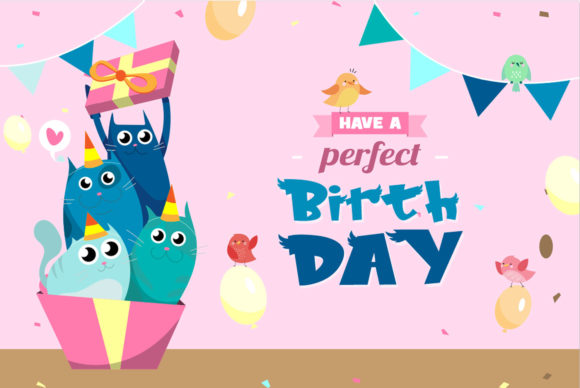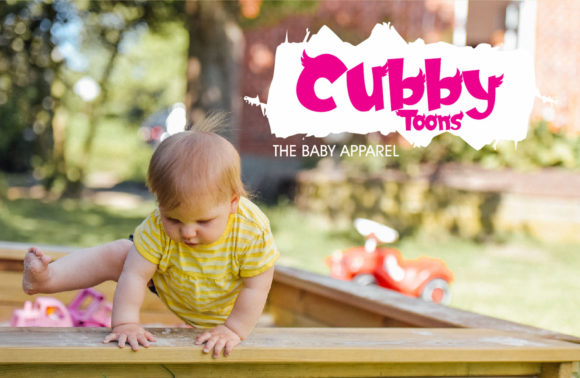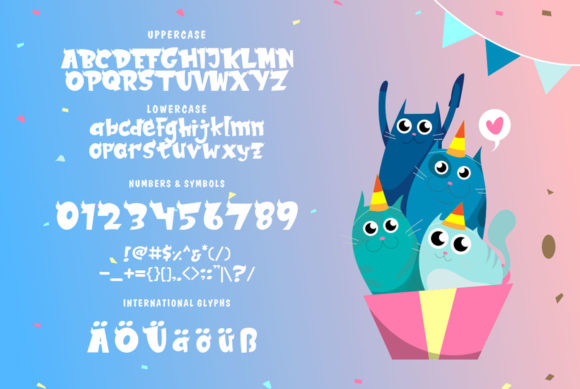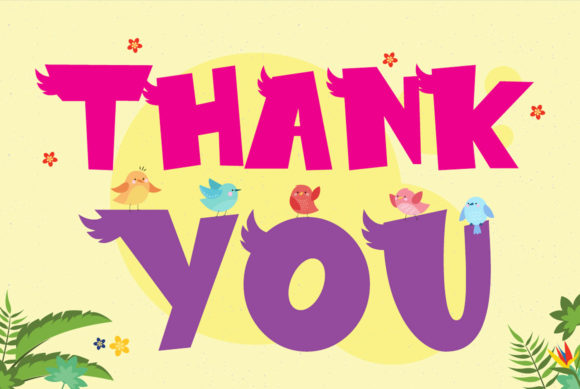
Have you ever found yourself staring at a blank canvas, searching for the perfect font to bring your creative vision to life? We’ve all been there – the moment when everything seems to be missing that special something, until suddenly, it hits you: the perfect font can make all the difference. For designers and creatives looking to add a playful twist to their work, the Birdthopia Font is here to revolutionize the way you think about typography.
This unique display font is specifically designed to inject a touch of cuteness and whimsy into your designs. Whether you’re working on a t-shirt design, a quote for social media, or a large-scale artwork, the Birdthopia Font is the perfect tool to help you stand out from the crowd.
Birdthopia Font Key Features
- Font Family: Birdthopia comes in 6 unique font styles, each with its own character and charm.
- Unique Characteristics: Birdthopia features a unique blend of modern and whimsical elements, making it perfect for designs that require a touch of playfulness and sophistication.
Birdthopia Font Review
As a designer, I’m always on the lookout for unique and visually appealing fonts to add to my toolkit. Birdthopia Font is one such font that caught my attention, and I’m excited to share my honest review.
- Unconventional yet charming design: Birdthopia Font has a distinctive feel that’s perfect for adding a touch of whimsy to your designs.
- Good for display use: This font is well-suited for headings, titles, and other display text where you want to make a statement.
- Legible at various sizes: Despite its unusual design, Birdthopia Font remains legible even at smaller font sizes.
Limitsations ⚠️
- May not be suitable for body text: Due to its unique design, Birdthopia Font may be difficult to read in large blocks of text.
- Lack of versatility: While it’s perfect for display use, Birdthopia Font may not be the best choice for projects that require a more traditional font.
Birdthopia Font is a bold and eye-catching addition to any designer’s toolkit. While it may have its limitations, it’s perfect for projects that require a touch of personality and whimsy. I’d definitely recommend it for display use, but use it sparingly in body text to avoid overwhelming your audience.
Tips for getting the most out of Birdthopia in Canva: Use it for whimsical and playful designs, such as invitations, social media graphics, and branding materials.
- Use the font for creative and artistic designs, such as typography-based art and illustrations.
Tips for getting the most out of Birdthopia in Adobe Photoshop/Illustrator: Experiment with layer blending modes and effects to add depth and texture to your designs.
- Use the font for creative and engaging presentations and documents.
Tips for getting the most out of Birdthopia in PowerPoint/Word: Use it to create eye-catching headings and titles that grab the reader’s attention.
The Birdthopia font is ideal for:
- Whimsical and playful designs
- Typography-based art and illustrations
- Engaging presentations and documents